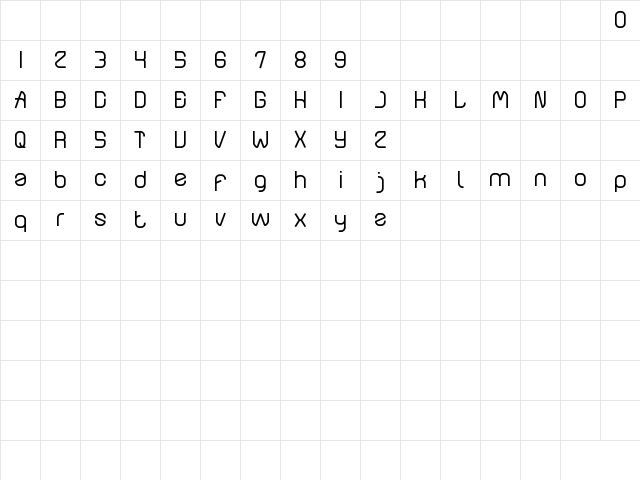
windows object Regular
Design Context for windows object
windows object is a composed and adaptable typeface that performs quietly and consistently across a wide range of design contexts.